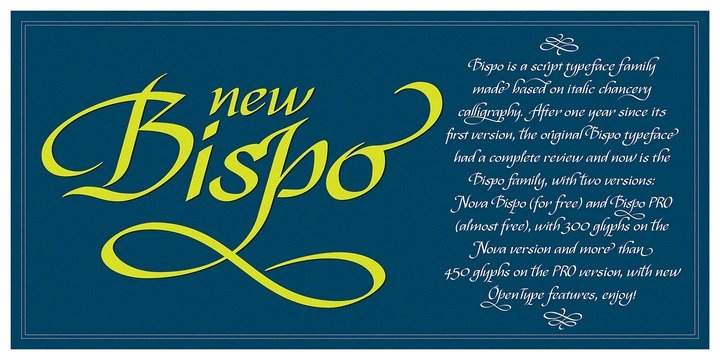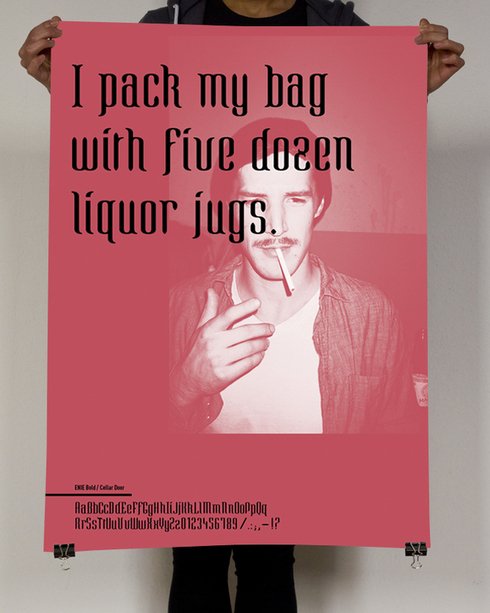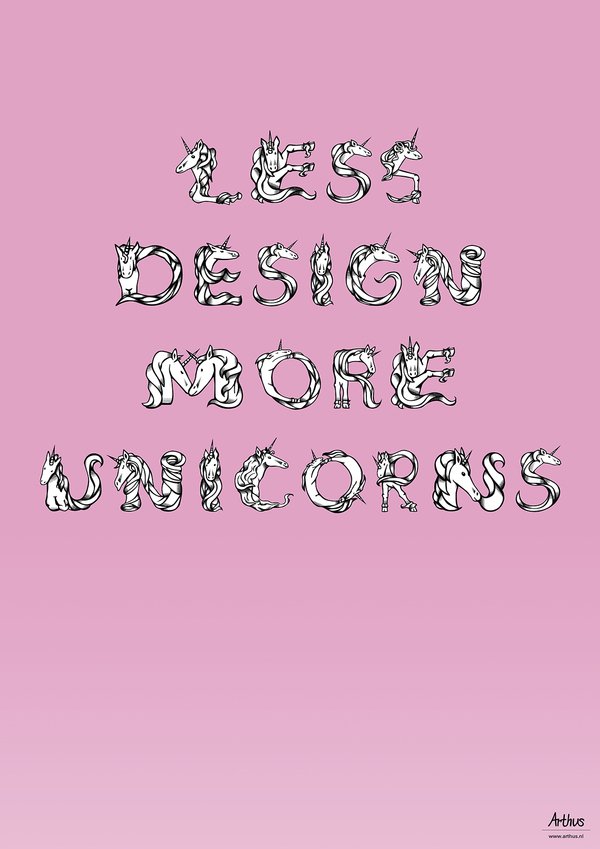
Bispo
Author: Jackson Alves
Description:
“Bispo is a script typeface family made based on italic chancery calligraphy.”
Enie
Author: Maximilian Huber
Description
: “The basic idea for the font Enie was to create a striking Display-Font which will find its use on posters or for editorial headlines.The character of the font should be elegant and a little bit dangerous at the same time. Further it should be associated with broken script fonts.”
The Magical Unicorn
Author: Arthur Reinders Folmer
Description
: “The Magical Unicorn Typeface is a font based on unicorns, and consists of a full Latin character set and numerals. Made specific for people with a love or obsession for unicorns, this font will make your texts sparkle and shine like no other.”
PLSTK
Author: Aesthetic Therapie
Description
: “PLSTK was inspired by the plastic industry…”